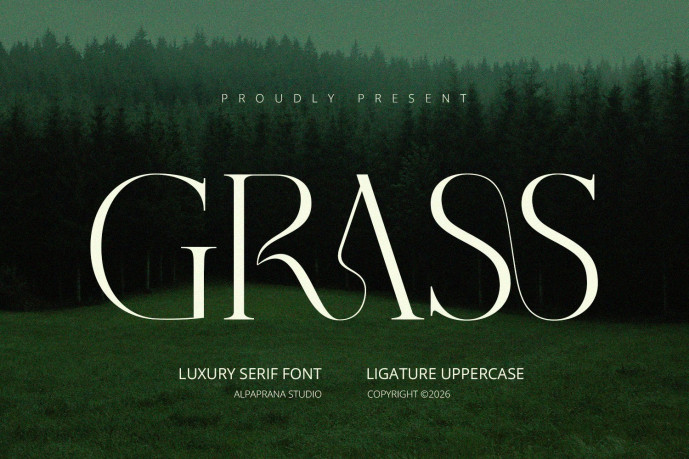
Grass Serif Font
Designer: Alpaprana
Grass Serif Font is a modern serif font that blends timeless elegance with contemporary sophistication. Featuring refined letterforms, stylish ligatures, and alternate characters, it offers a distinctive and versatile typographic experience. Designed for both display and editorial use, Grass is perfect for branding, logos, packaging, invitations, fashion projects, websites, and premium marketing materials. With multilingual support, OpenType features, and compatibility across PC and Mac, Grass provides both beauty and functionality for creative professionals seeking a modern serif with a unique personality.